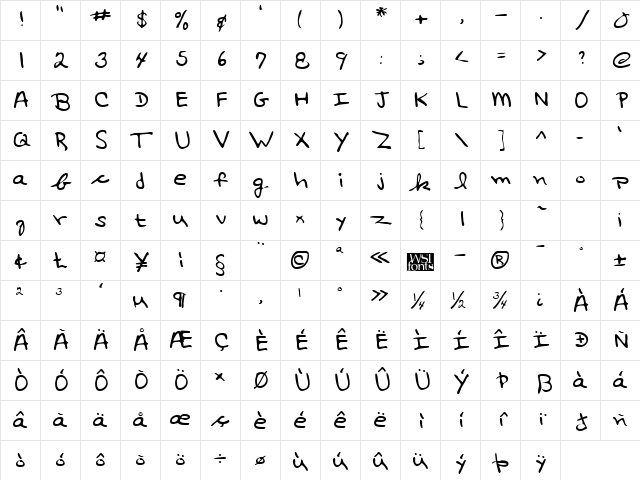
AshtonsHand Regular
Design Context for AshtonsHand
AshtonsHand flows with the natural rhythm of handwritten lettering, making it ideal for designs that call for warmth and personal expression.
Font Pairing: Combine AshtonsHand with a simple geometric sans for maximum contrast - the tension between flowing curves and clean structure is a classic typographic pairing.